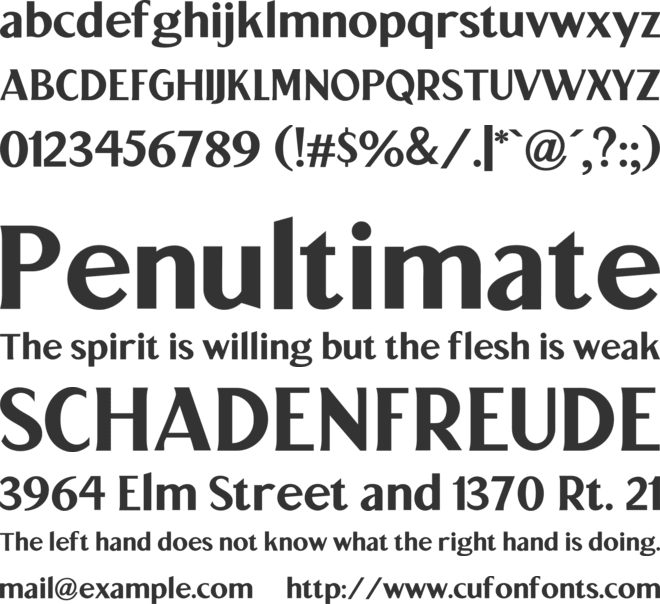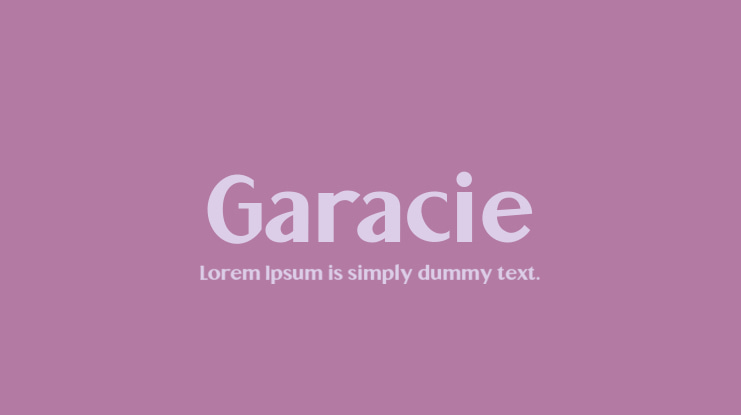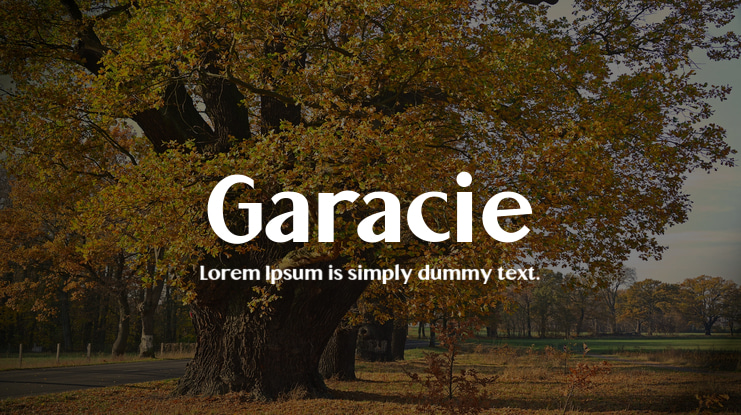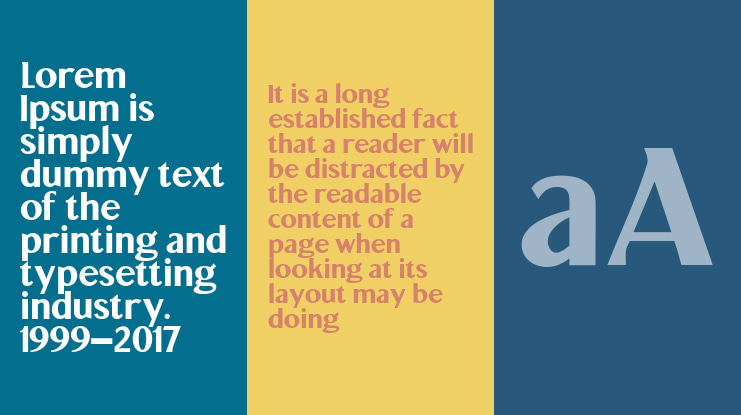
Garacie Font
This is a bold sans serif font that is simple but strong, defined by sharp edges with a modern touch. This font is imposing and features uniquely shaped letters, and as a result, it will easily match a wide range of creations that require a distinct touch. it’s a perfect choice for branding, magazines, posters, advertising, packaging, headlines, logos, web, print etc.